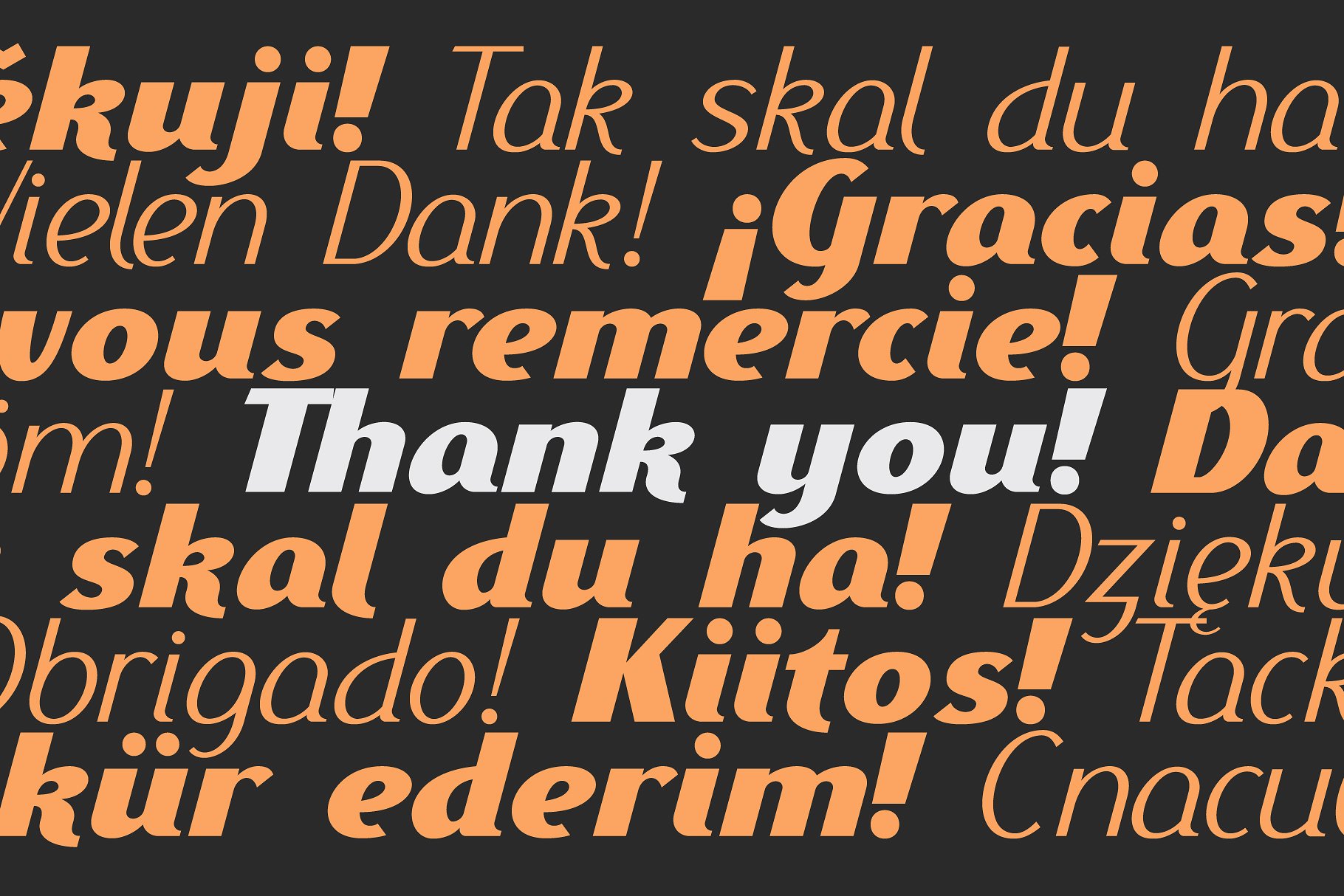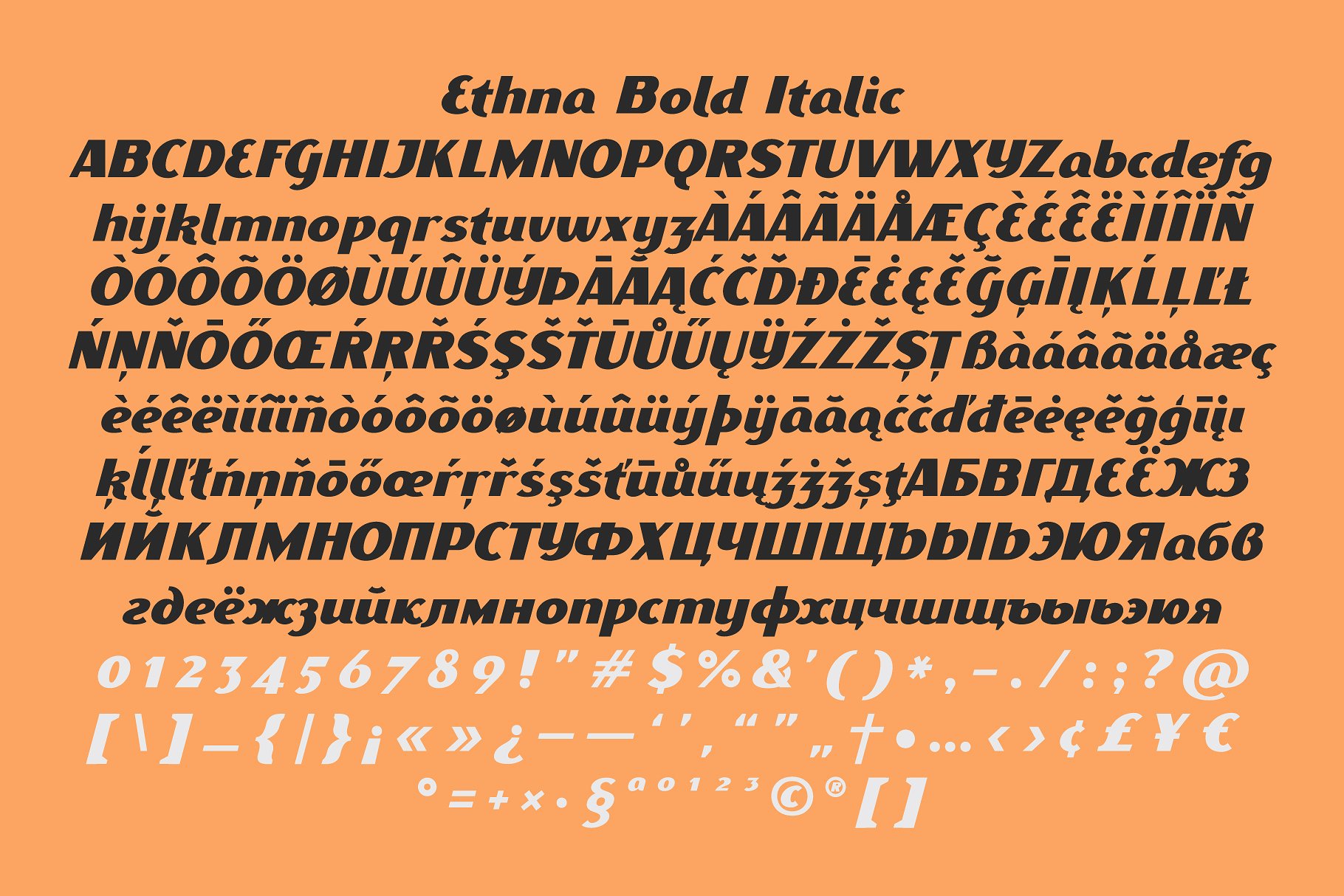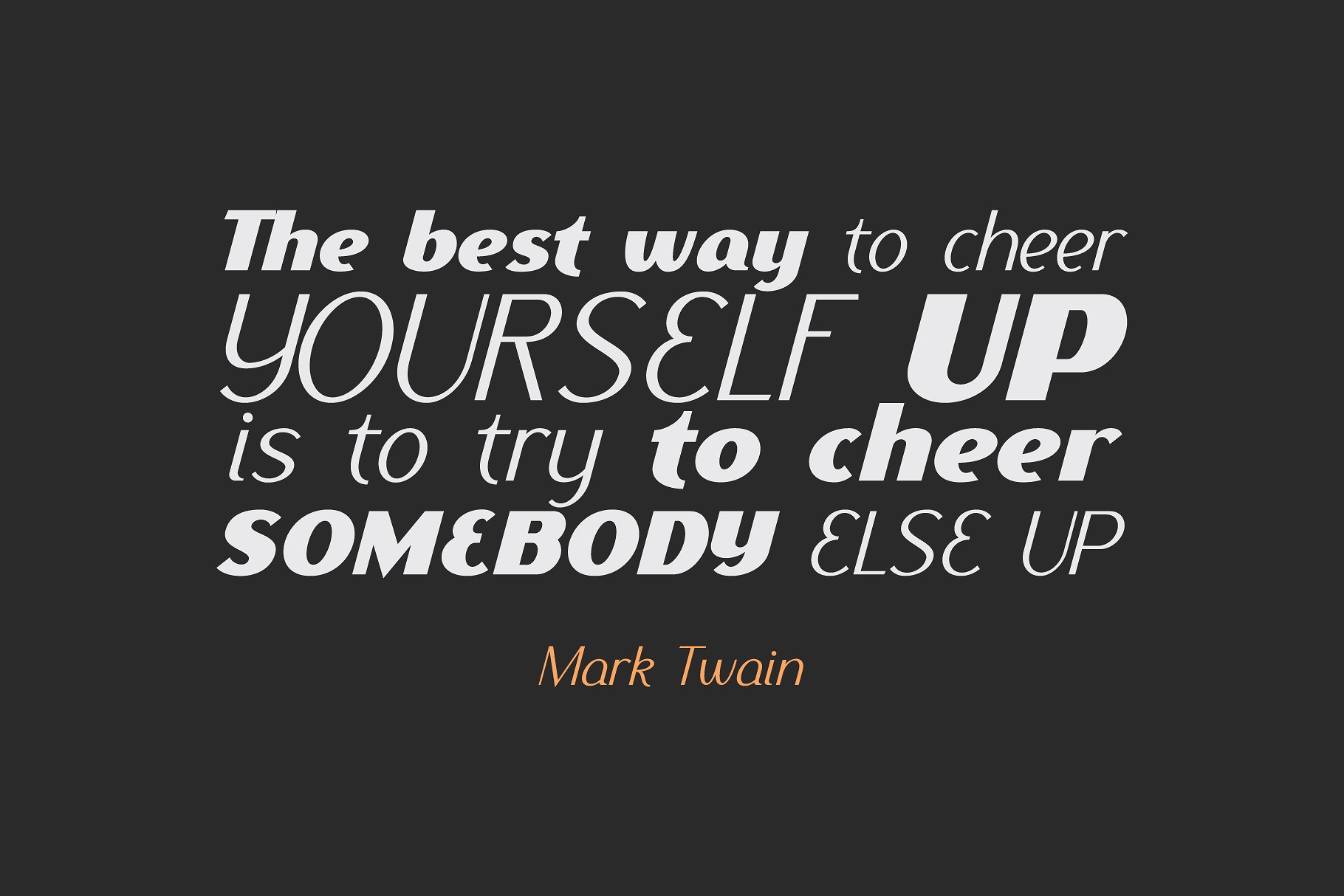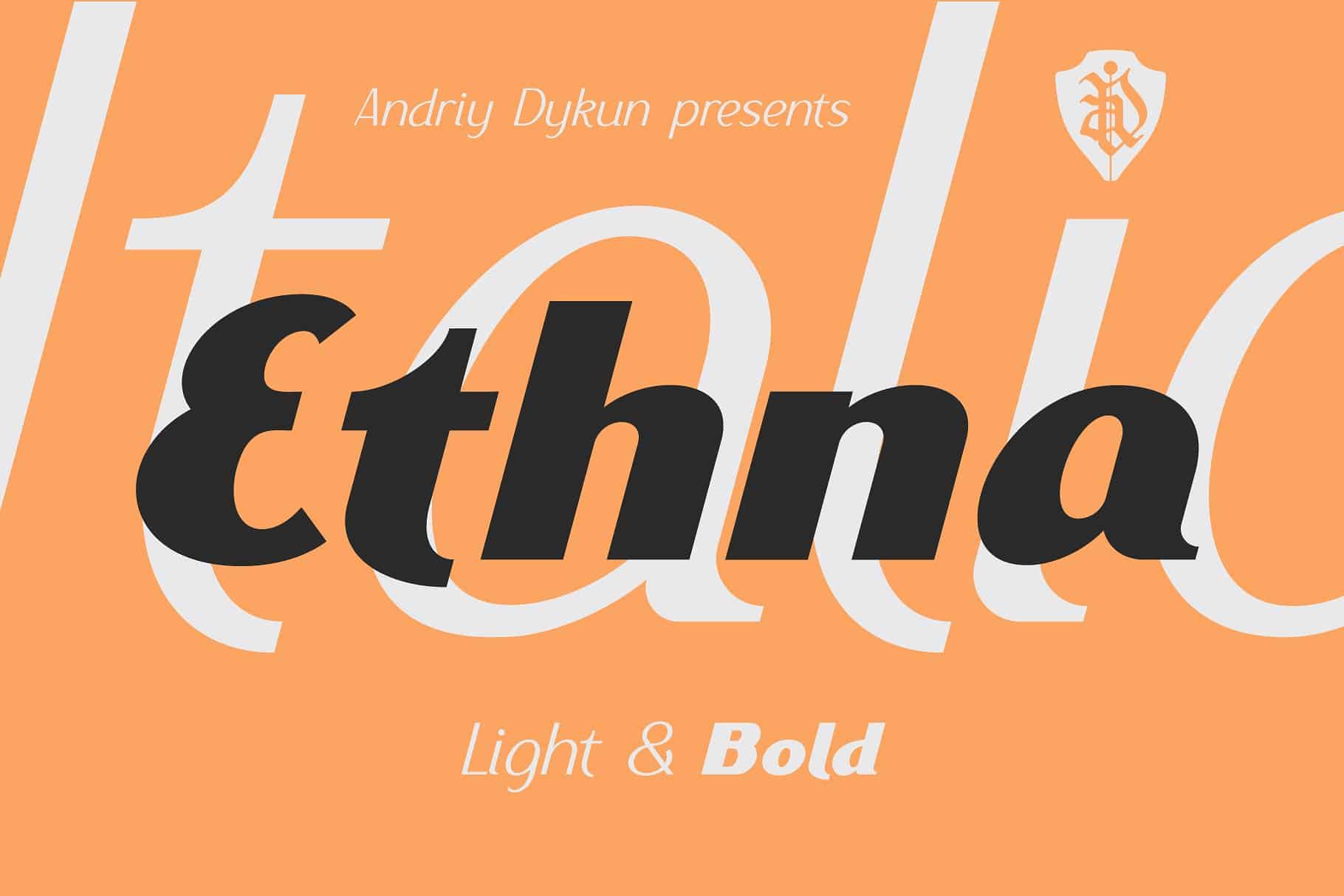
Ethna Typeface
Introducing Ethna. It is designed by maculinc, this is a premium font, are sold on creativemarket, but it was great, it is free today for download. It perfectly represents modern and vintage esthetics. The font includes uppercase and smallcase letters and multilingual support. Font looks amazing as alone words and as full text blocks. Also it good for bright captions and unforgettable logos.